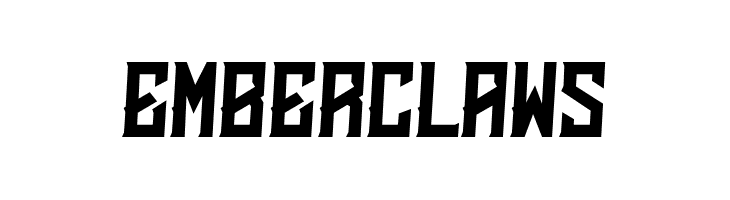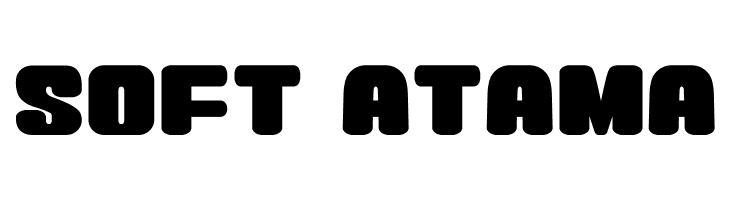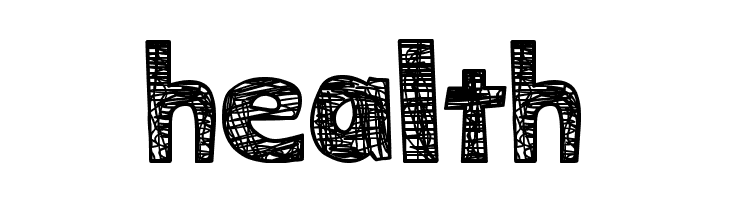
A bold, rounded font with a playful and modern style.
A whimsical and decorative font with playful, eccentric design elements.
A bold, angular font with sharp edges and a dynamic style.
A bold, angular font with a geometric and aggressive style.
A bold, angular font with sharp edges and a strong geometric style.
A bold, outlined font with a futuristic and geometric design.
A bold, playful font with exaggerated, cartoonish characters.
A bold, angular font with a gothic-inspired, modern aesthetic.